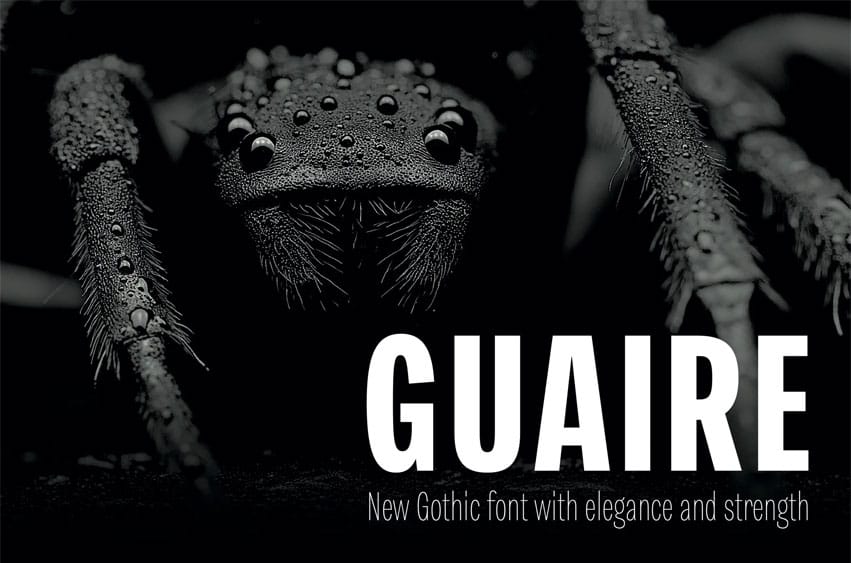
RNS Guaire Font is A Bold Fusion of Tradition and Modernity. Dive into a typographic masterpiece that blends the elegance of Gothic-inspired forms with the versatility of modern sans-serif design.
With 9 weights ranging from delicate Thin to commanding Black, Guaire is your ultimate toolkit for creative expression.